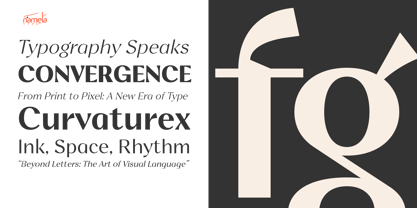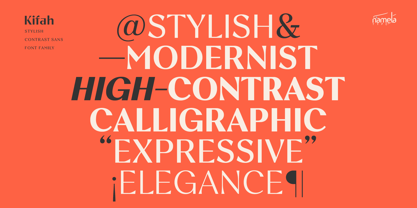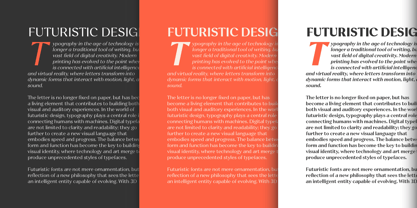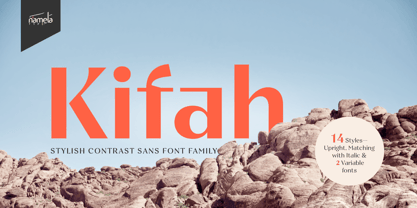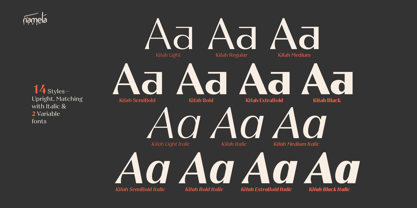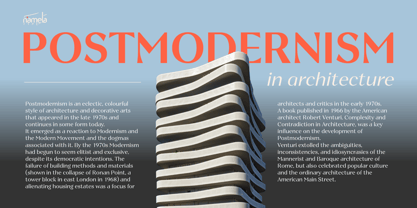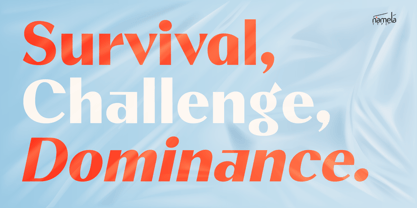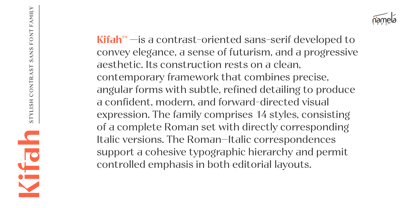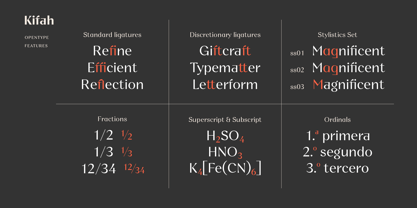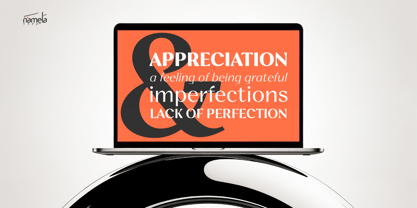
Kifah
The Kifah Font Family was designed by Nur Syamsi, Bustanul Arifin and published by NamelaType. Kifah contains 14 styles and family package options. More about this family
Kifah Stylish Contrast Sans Font developed to convey elegance, a sense of futurism, and a progressive aesthetic. Its construction rests on a clean, contemporary framework that combines precise, angular forms with subtle, refined detailing to produce a confident, modern, and forward-directed visual expression. Kifah Stylish Contrast Sans Font’s family comprises 14 styles, consisting of a complete Roman set with directly corresponding Italic versions. The Roman–Italic correspondences support a cohesive typographic hierarchy and permit controlled emphasis in both editorial layouts and digital interfaces.